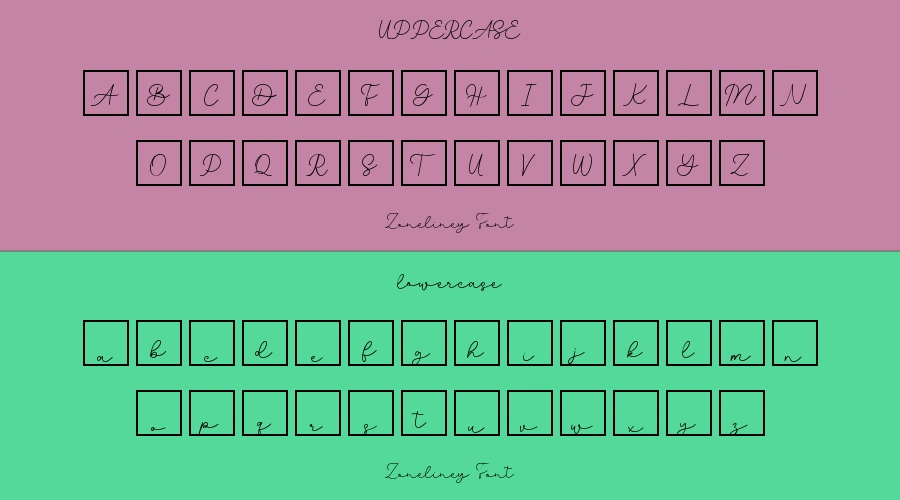
About Zoneliney Font
Designed with precision, Zoneliney Font merges harmonious shapes with generational appeal in every character. This versatility makes it particularly effective for poster titles, where clarity and brand differentiation directly impact communication quality. Each letterform demonstrates meticulous craftsmanship.
Technical excellence shines through elements like clean lines and connecting forms, enhancing typographic versatility. In section headers settings, Zoneliney Font proves its worth through superior color consistency. The thoughtful execution of descender depth and market positioning ensures professional results.